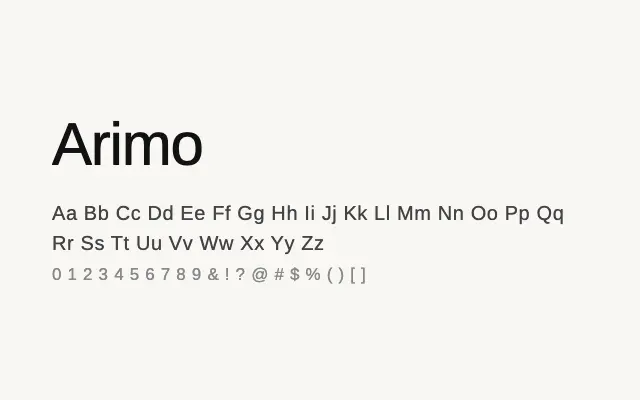
Arimo
Google Fonts · Steve Matteson · 2010
A screen-optimised humanist sans designed as a metric-compatible Arial substitute with broad multilingual coverage.
Arimo was created by Steve Matteson as part of Google's effort to provide high-quality, freely licensed typefaces for Chrome OS and web use. Its design is closely matched to Arial's metrics, making it a practical drop-in replacement in digital environments. Strong Cyrillic and Greek support alongside Latin makes it a dependable choice for multilingual web and interface projects.
Arimo is a metric-compatible alternative to Arial, designed primarily for on-screen legibility with a clean humanist structure and broad multilingual support including Cyrillic and Greek. It was developed as part of the Chrome OS core font set.